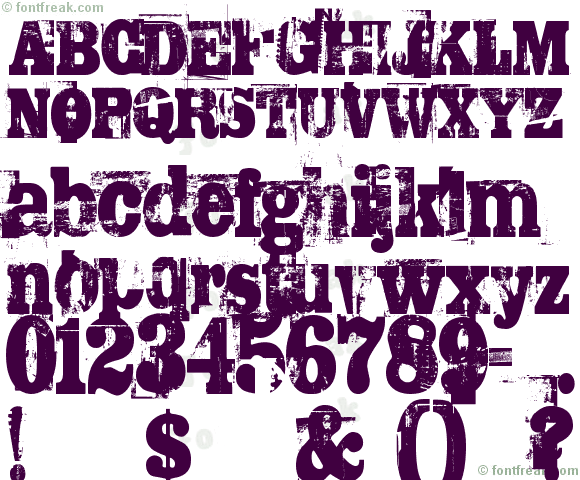
TRASHED
About TRASHED
The TRASHED font by Gyom Seguin is a striking display typeface that exudes a raw, urban aesthetic. Released in 2006, this freeware font captures the essence of street art and graffiti, making it a perfect choice for designs that seek to evoke a sense of rebellion and creativity. Characterized by its bold stroke weight and distressed texture, TRASHED features uneven edges and a rugged appearance that adds character to any project. The lack of uniformity in its letterforms enhances its visual appeal, making it stand out in a world of polished typefaces.
This unique font is versatile and can be effectively utilized in various contexts. It's an excellent choice for movie posters, where its bold and edgy style can convey excitement and intrigue. Additionally, TRASHED works beautifully for music event flyers, capturing the essence of lively performances and dynamic atmospheres. Graphic designers may also find it suitable for branding projects, especially for businesses looking to project a youthful and unconventional image. Restaurant menus that aim for a casual vibe can benefit from this font, as it adds a touch of personality that resonates with patrons.
Targeting graphic designers, small business owners, and content creators, TRASHED appeals to those who wish to make a statement with their typography. Whether you’re designing for print or digital media, this font offers a unique solution for projects requiring a bold visual impact.
What sets the TRASHED font apart is its ability to evoke emotion and character through its distinctive design. Its raw, unrefined look challenges traditional typography norms, making it a compelling choice for those who dare to be different. For anyone interested in elevating their design with a touch of urban flair, the TRASHED font free download is an opportunity not to be missed.